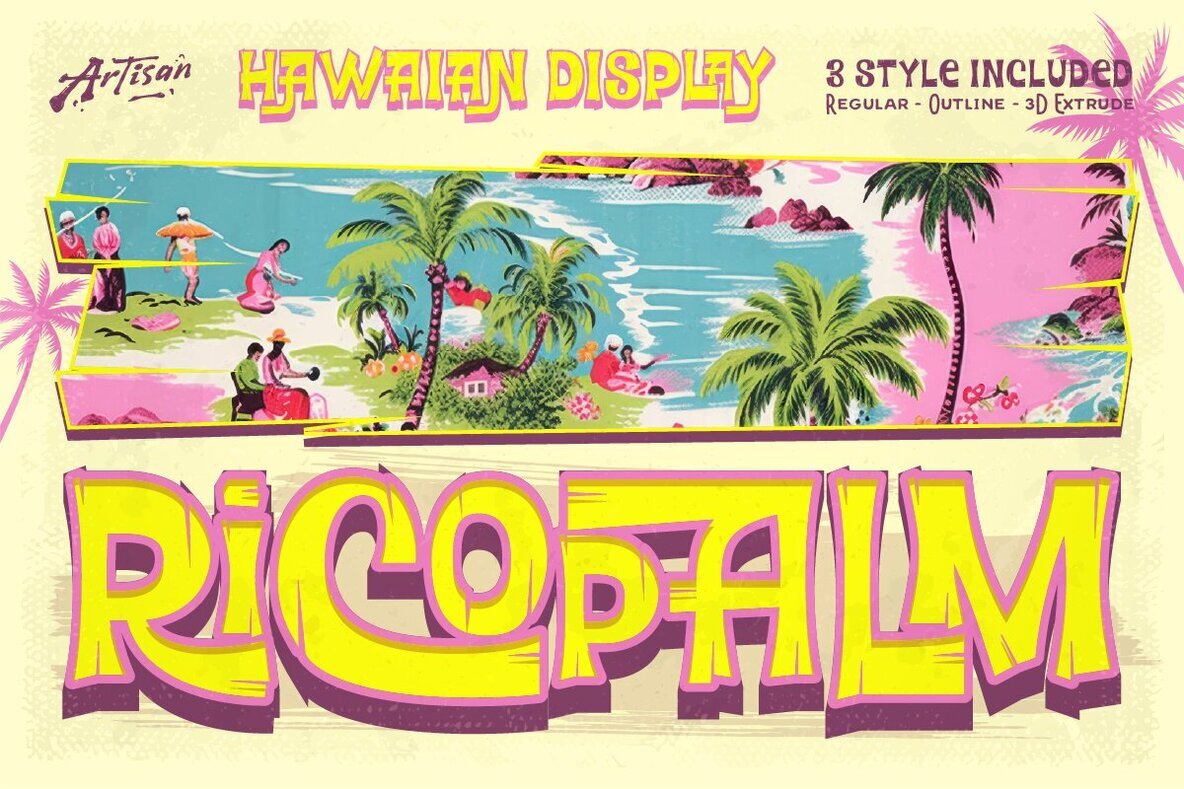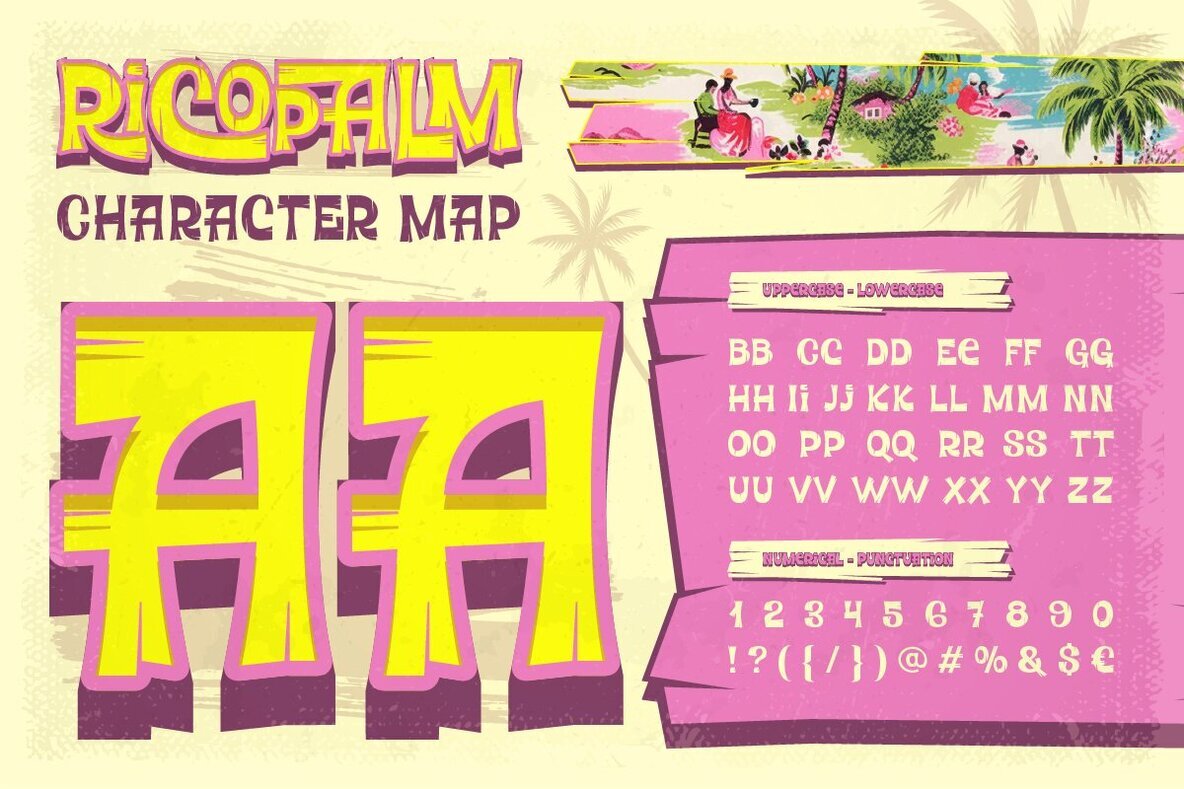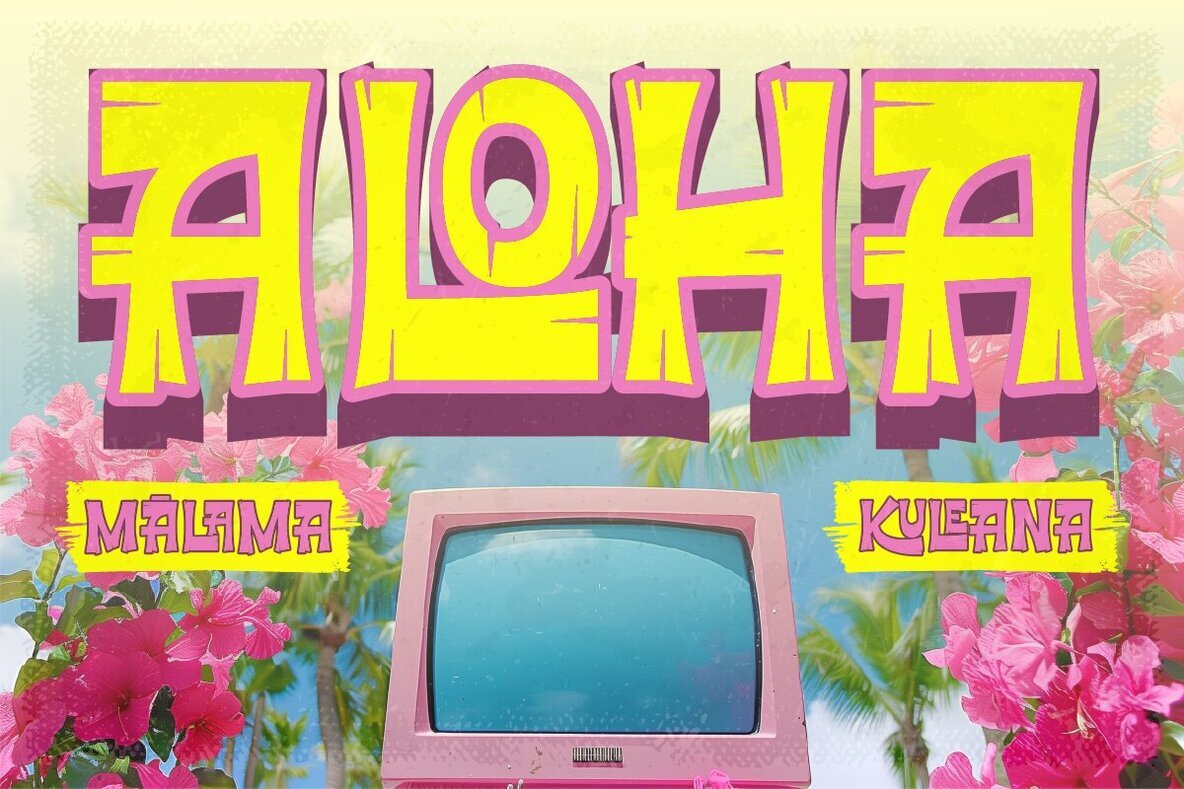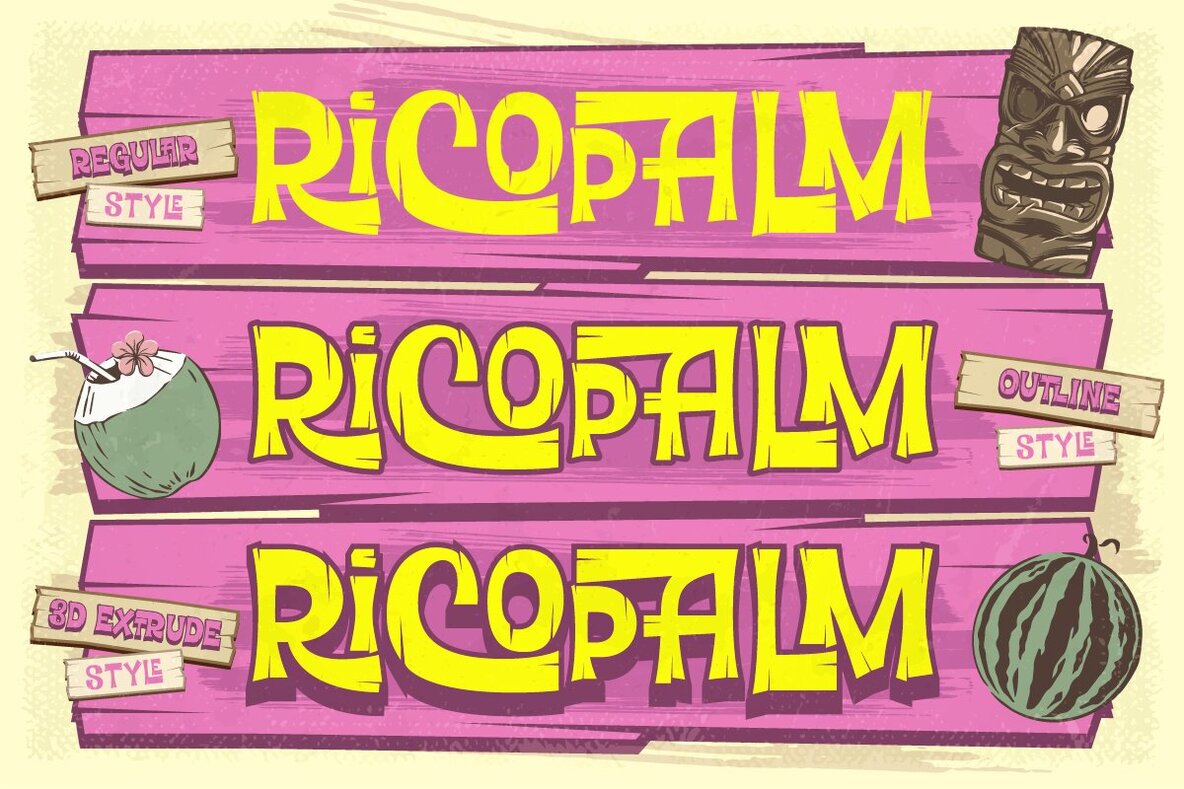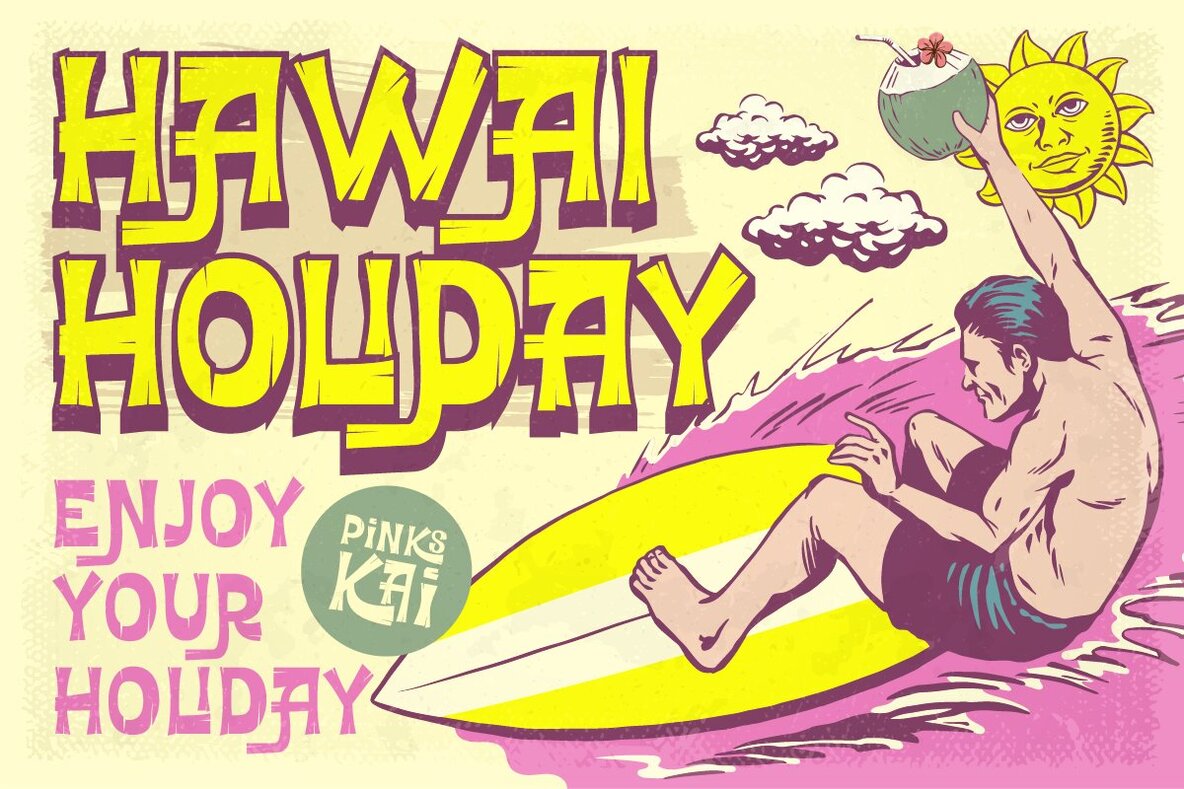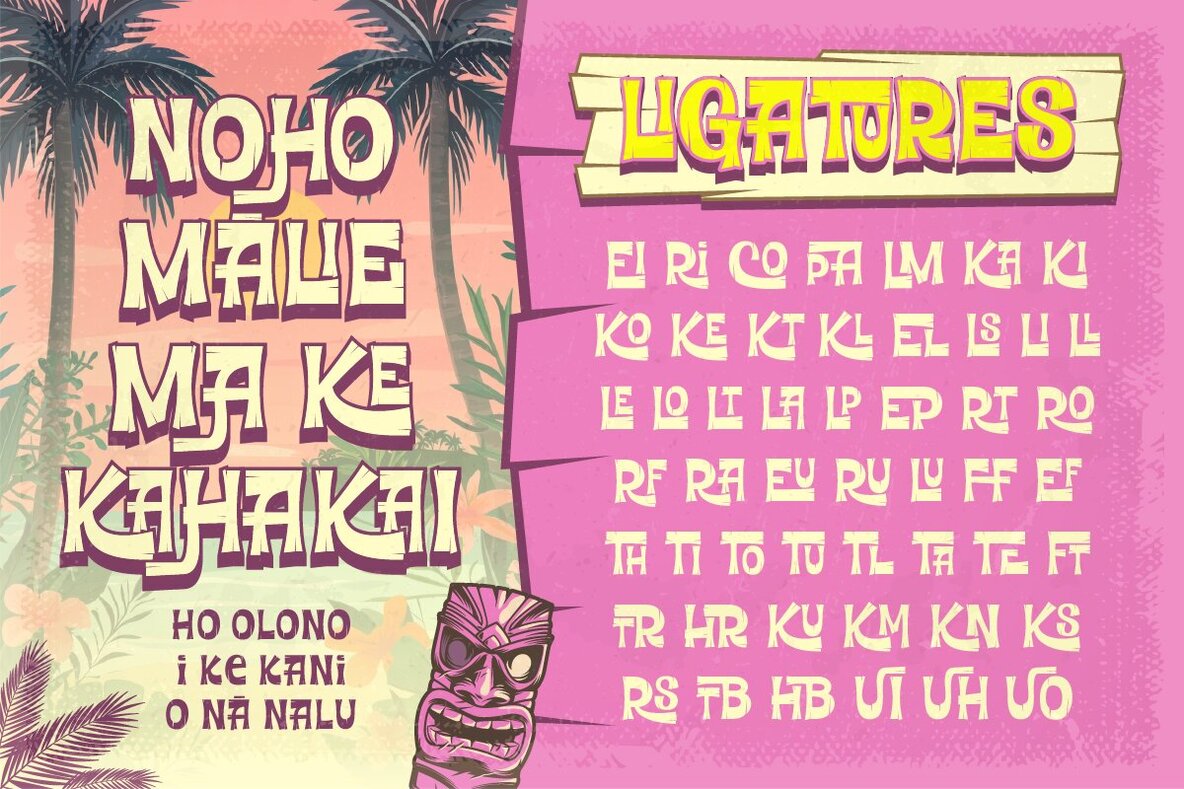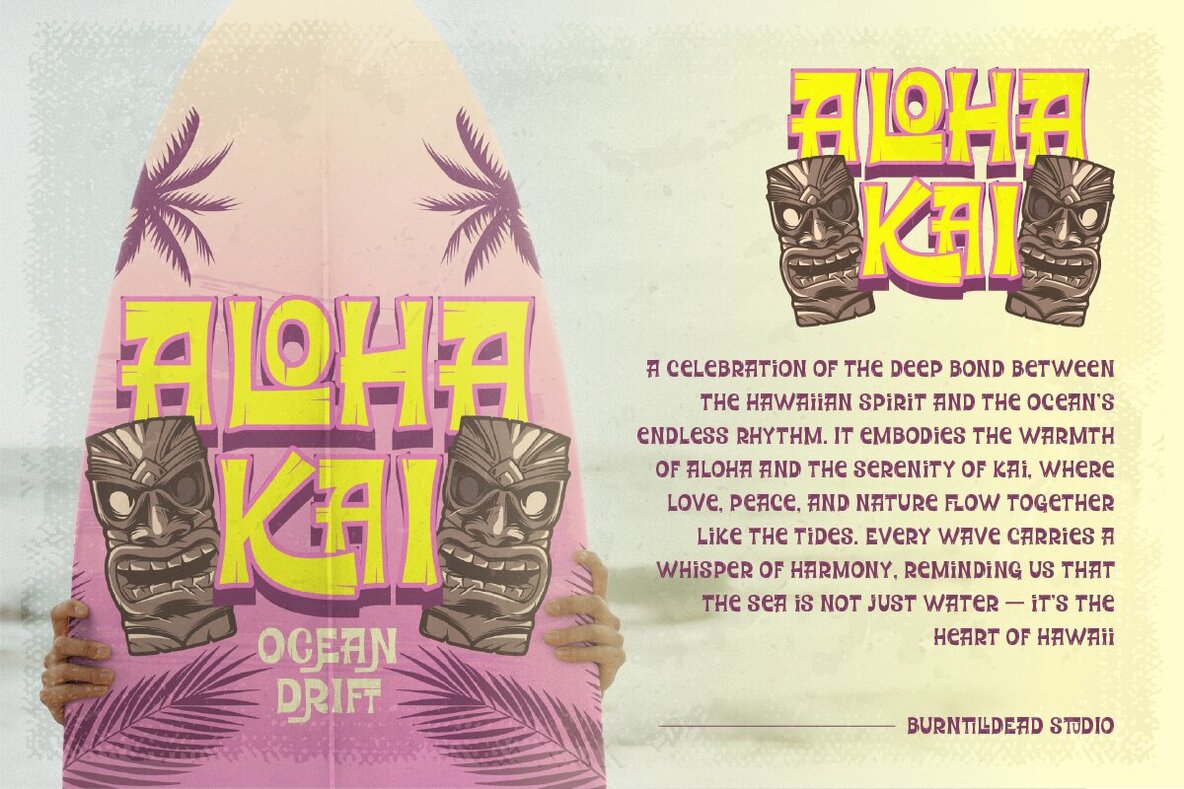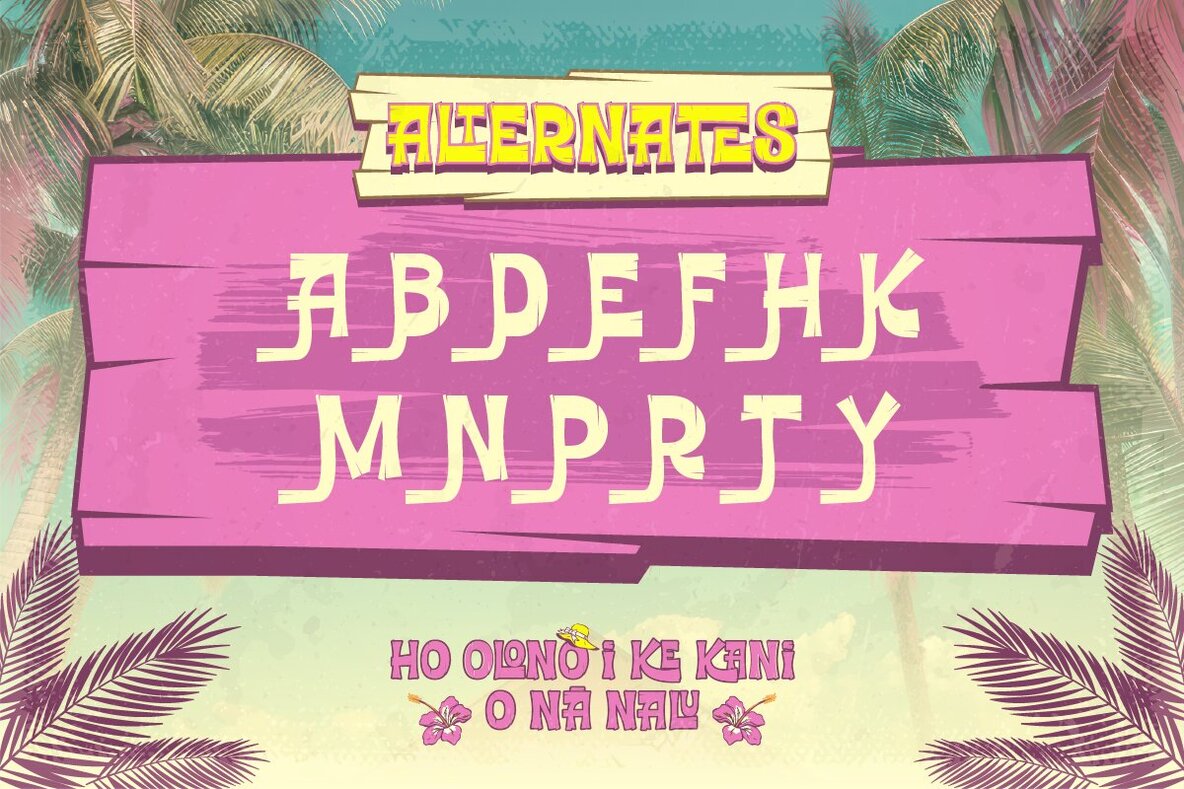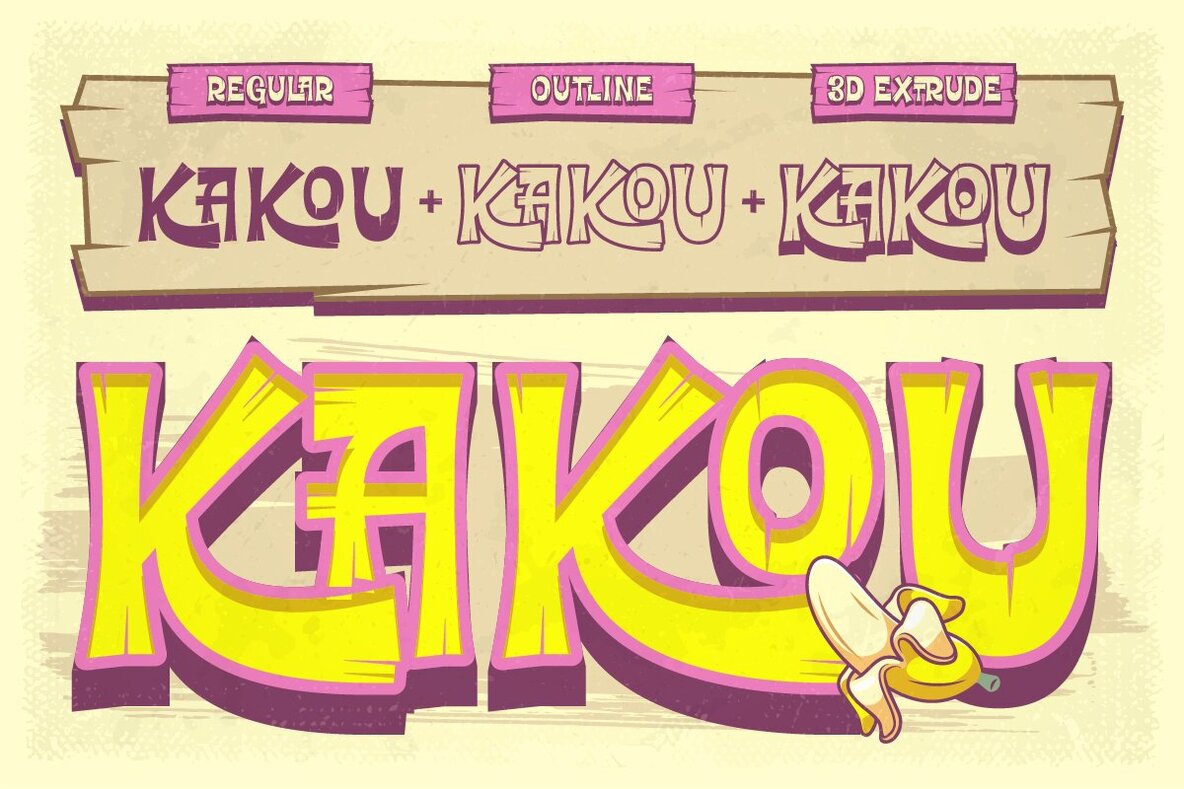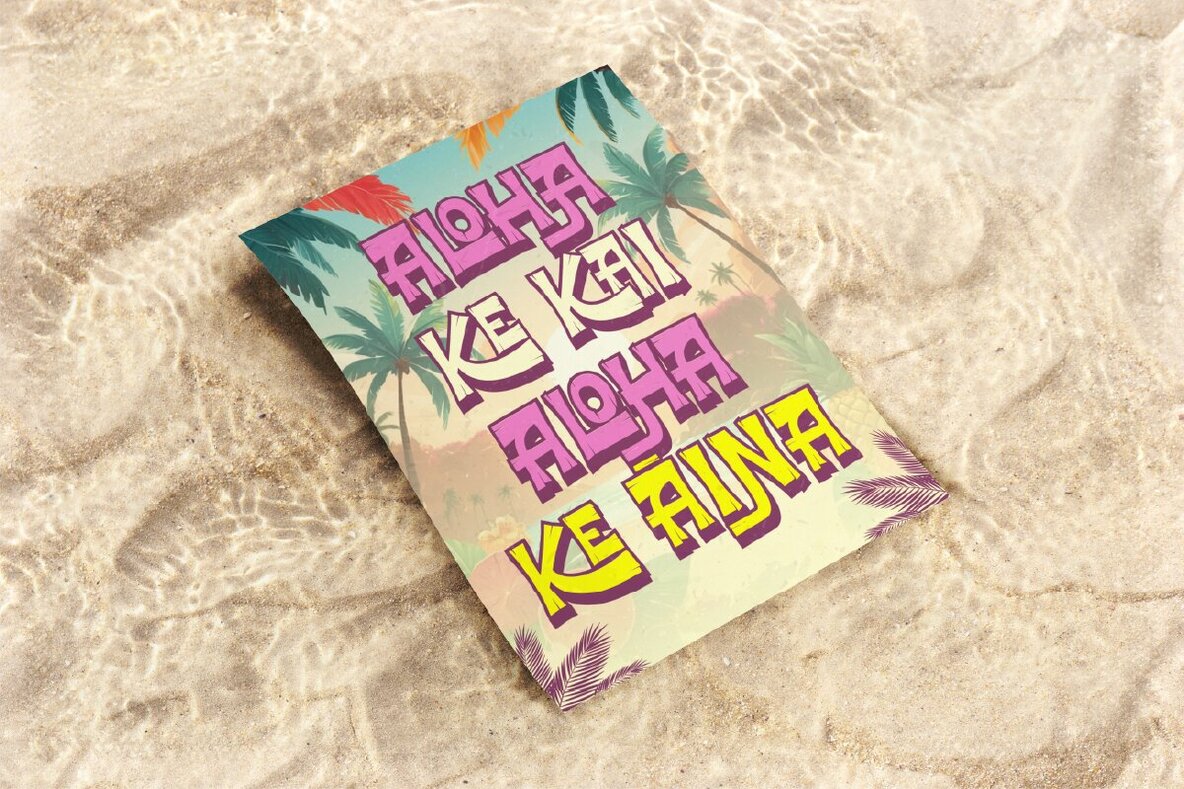
Ricopalm Font
Ricopalm Regular
Ricopalm 3D Extrude
Ricopalm Outline
Ricopalm is a display font that channels the breezy energy of Hawaiian coastlines and sun-soaked vintage posters. Rooted in a retro, tropical aesthetic, Ricopalm’s bold forms and expressive curves impart a lively, approachable character to any project. This font is designed for graphic designers seeking a distinctive typography solution for summer campaigns, relaxed branding, or any creative work that calls for vivid personality. Its visual language suggests informal gatherings and carefree days, brought to life through three unique styles: Regular, Outline, and 3D Extrude. Alternates and ligatures add authenticity and variation to your typography, ensuring a dynamic composition even in repetitive text settings. Ricopalm is an apt choice for summer event posters, café menus, logos, and digital graphics that require both nostalgia and a sense of fun.Ricopalm: Playful Display Font With Hawaiian Flair